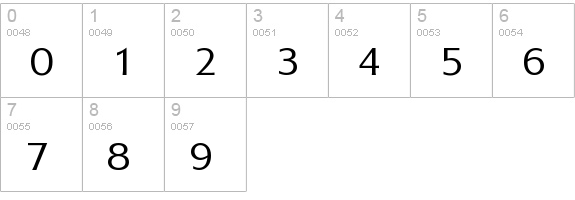
BluejackURWTLig Font Details
BluejackURWTLig is a versatile and stylish display font that exudes elegance and sophistication. With its sleek lines and modern aesthetic, this font is perfect for a wide range of design projects, from branding to editorial design. The unique ligatures add an extra touch of flair, making your text stand out and captivate the audience. What makes BluejackURWTLig even more appealing is the fact that it is completely free to download. You can easily access this exquisite font at FontsMarket.com, where you can unleash your creativity and elevate your designs with this stunning typeface. Whether you're working on a logo, poster, or website, BluejackURWTLig is sure to make a statement and leave a lasting impression. Download it today and take your design projects to the next level!